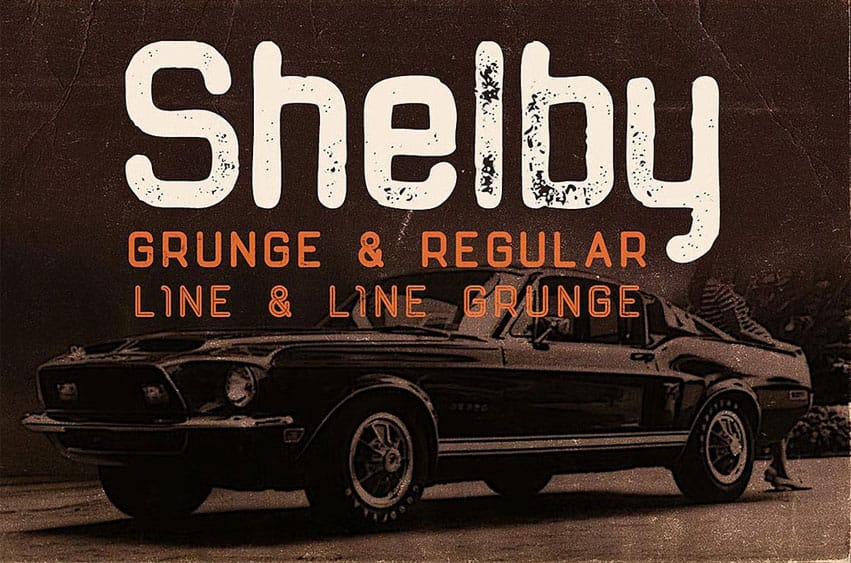
Shelby Typeface Font Modern and also vintage style custom font with 4 styles: regular and grunge, inline and inline grunge.
Every letter has a unique and beautiful touch, which will make your design come alive!